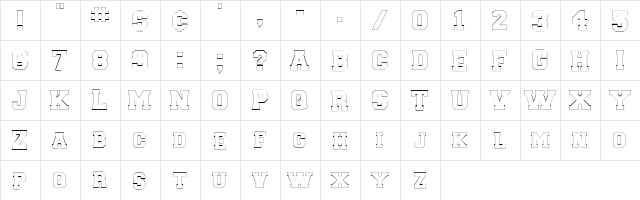
CollegiateBorderFLF Regular
Design Context for CollegiateBorderFLF Typeface
CollegiateBorderFLF takes a measured approach to typography — its balanced proportions and neutral character make it a reliable workhorse for both digital and print work.